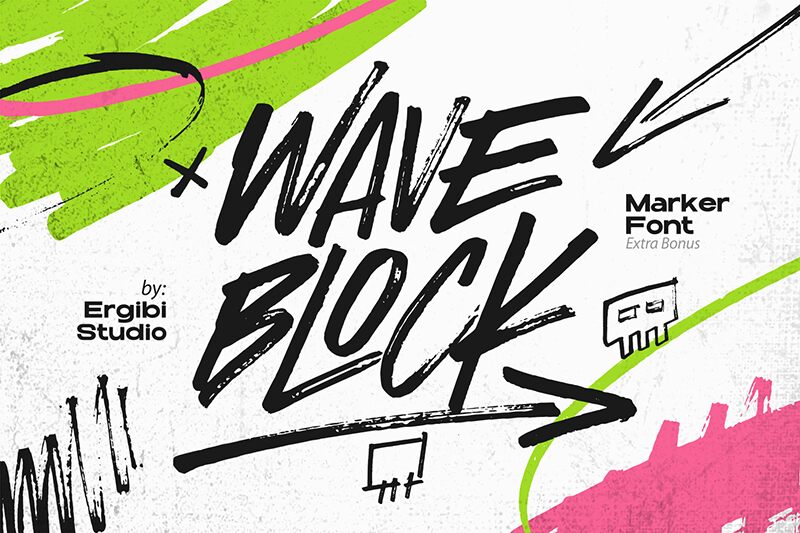
Wave Block font by Riyadh Rahman is a free brush font with a contemporary appeal. This edgy font with a dynamic and energic appearance has all it takes to leave an expressive impact on your audience. Letters are stylish, modern, and artistic; they come in a variant of geometric forms and visual styles. Apart from letters, numerals and punctuation marks are present in the typeface.
Create a genuine visual experience with Wave Block applied to your posters, certificates, social media posts, or magazines. Logos, branding, and packaging can be taken to a new level if you decide to go for it, only if consistent with your project’s genre. Website banners, posters, and much more can be designed as well.